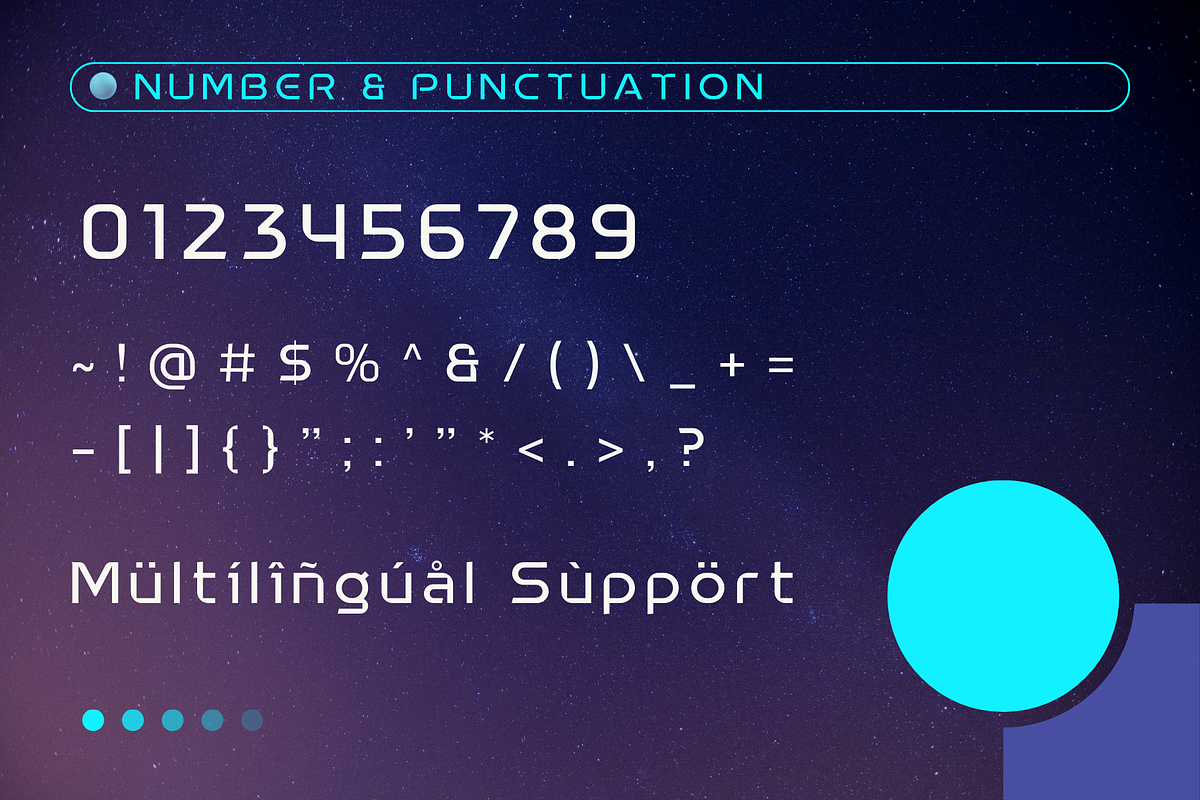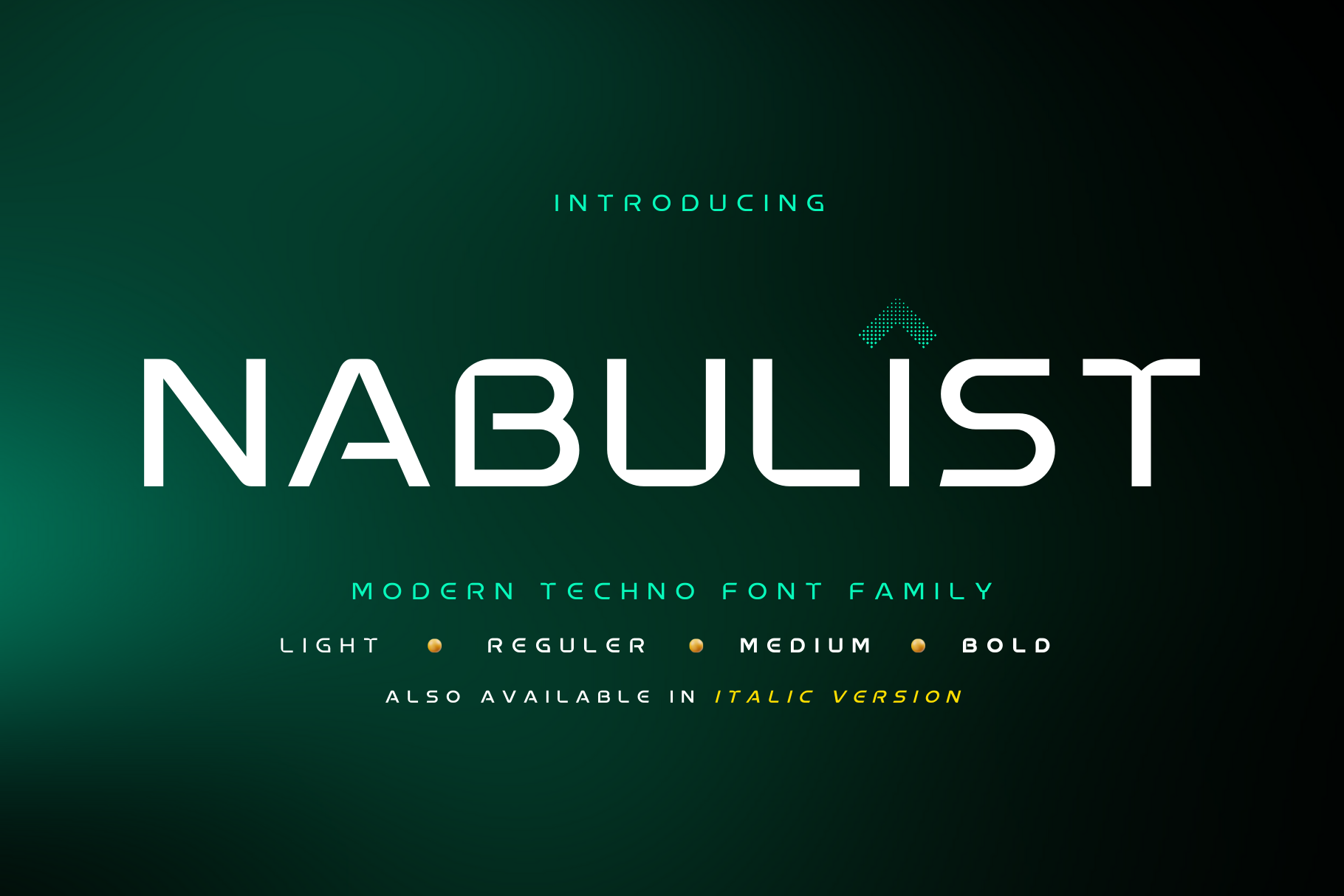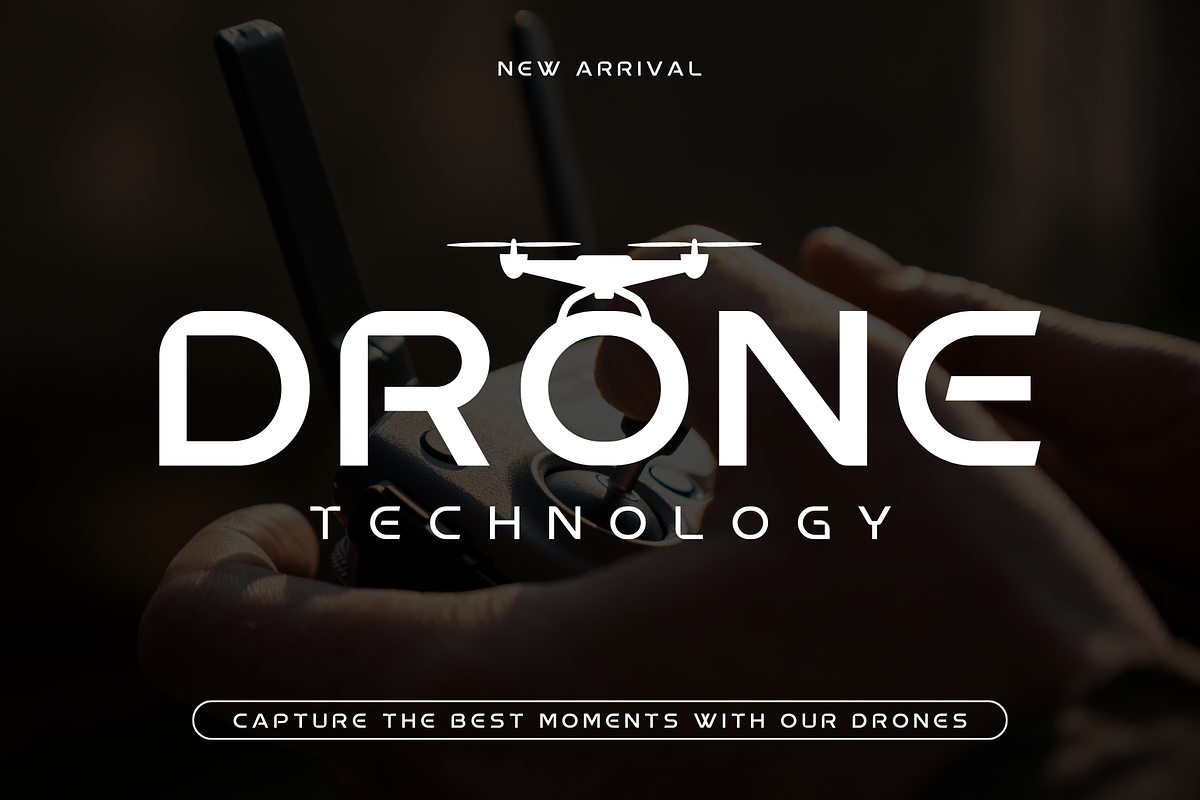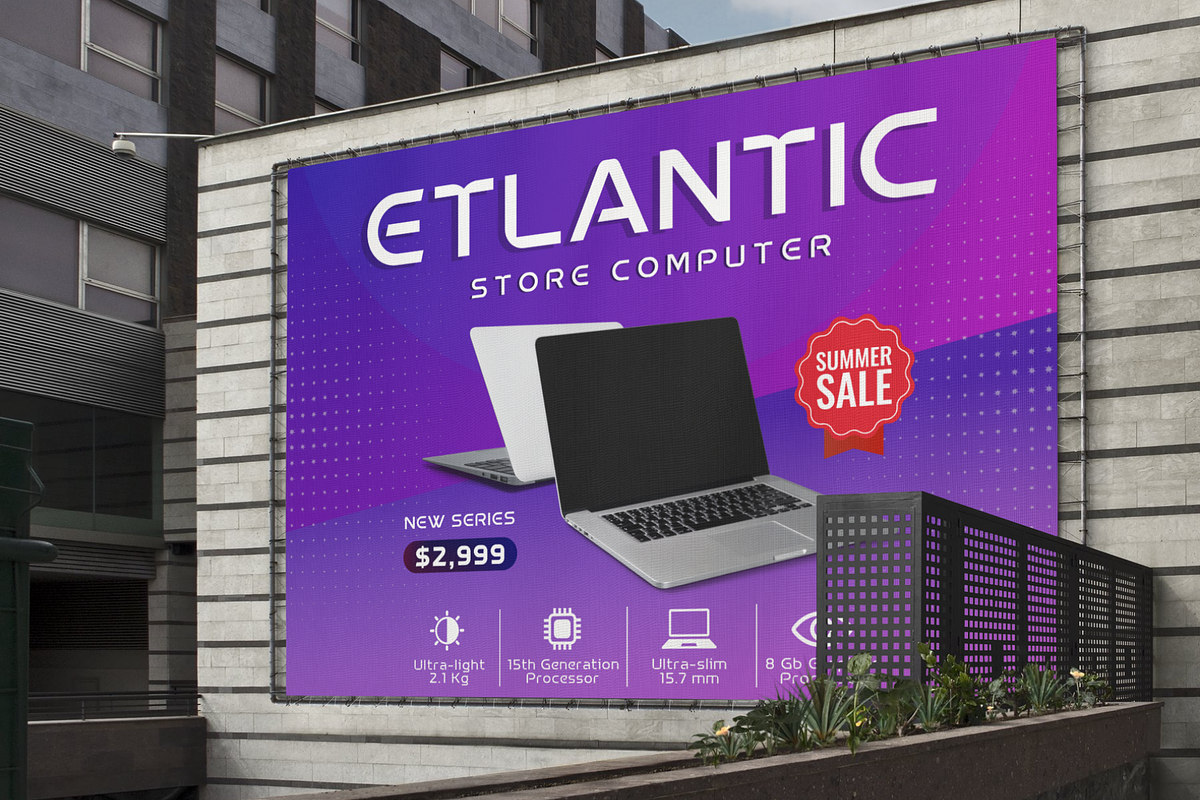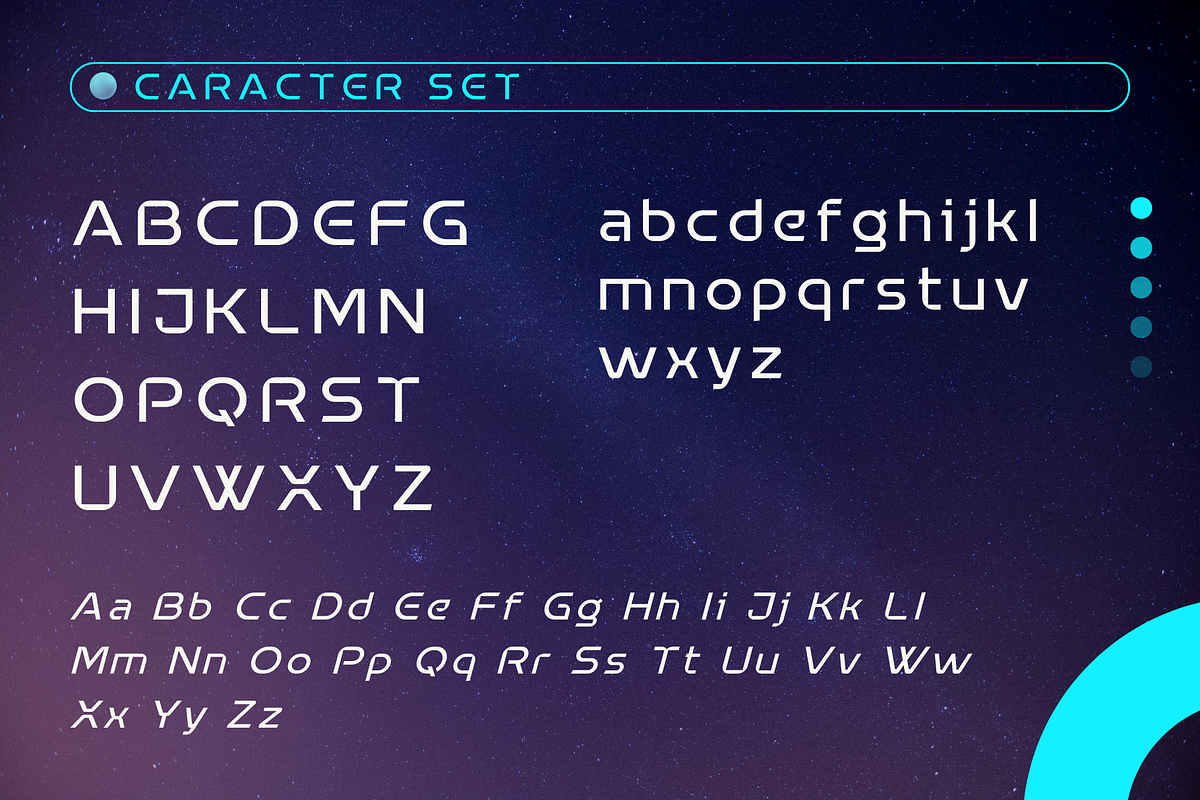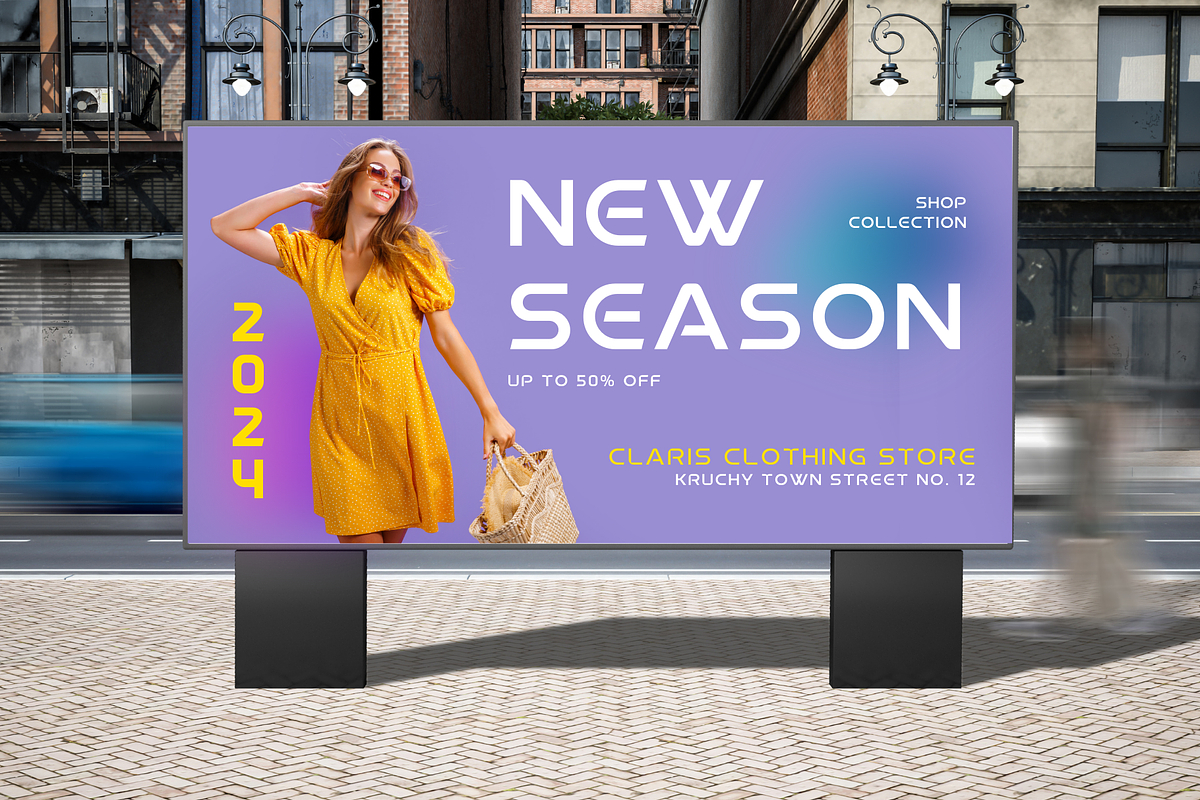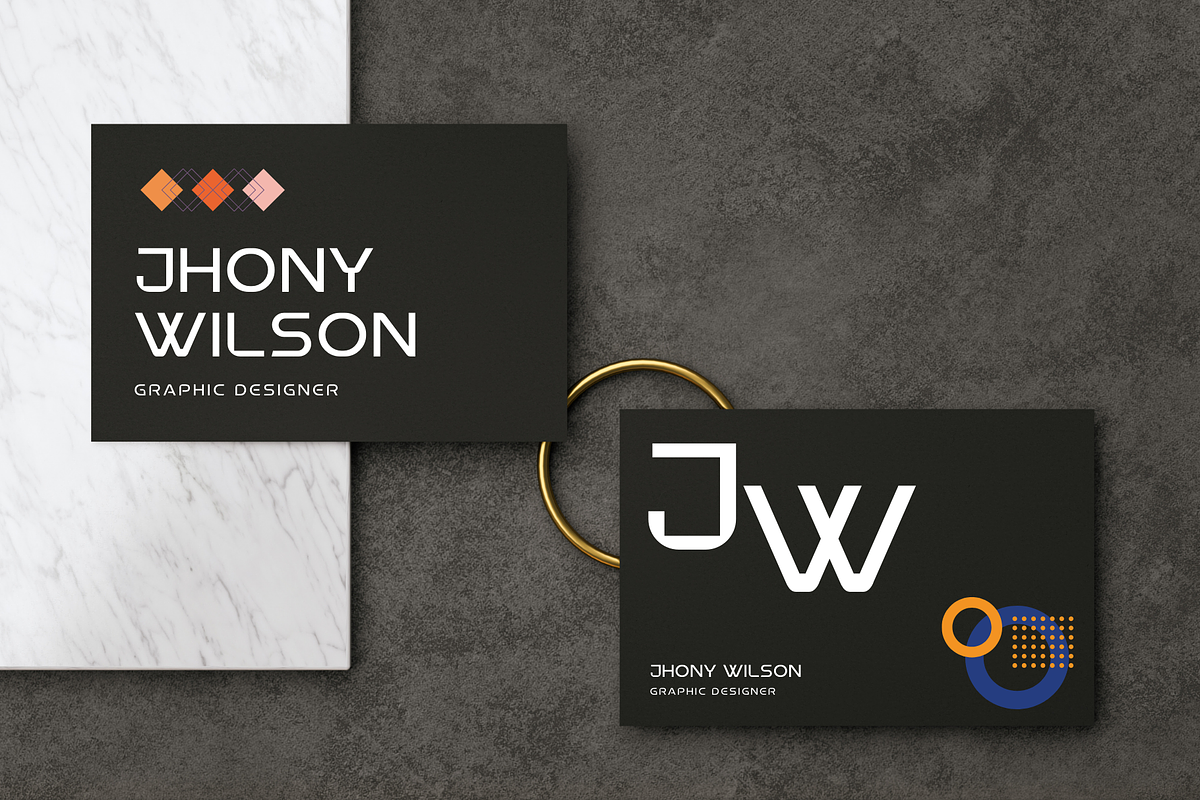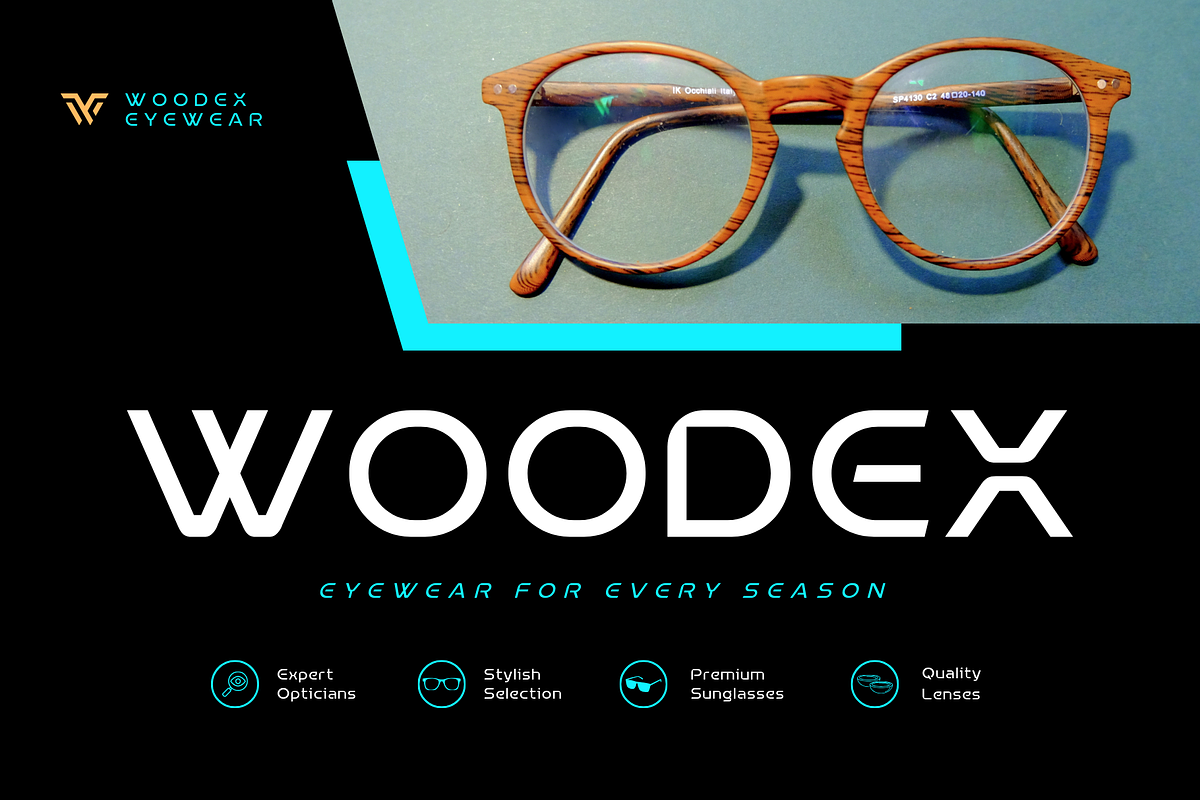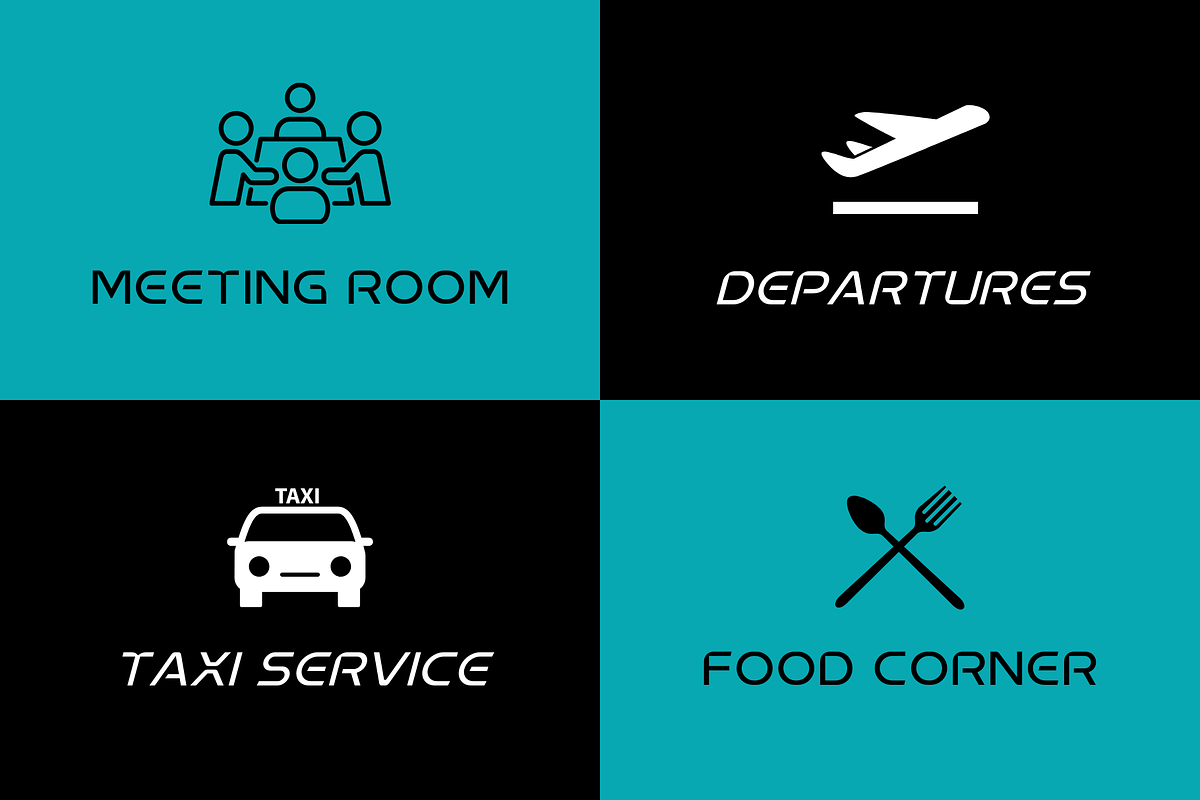
Nabulist - Modern Techno Typeface
Meet "Nabulist," a modern techno font family designed for the digital age. With its sleek lines and futuristic aesthetics, "Nabulist" brings a cutting-edge vibe to any project. Perfect for tech-related branding, websites, and digital interfaces, this font family offers versatility with multiple weights and styles, allowing you to create striking and dynamic visuals. Elevate your design game with the modern sophistication of "Nabulist."
- 8Style: Light, Regular, Medium, Bold, Light Italic, Regular Italic, Medium Italic, Bold Italic.